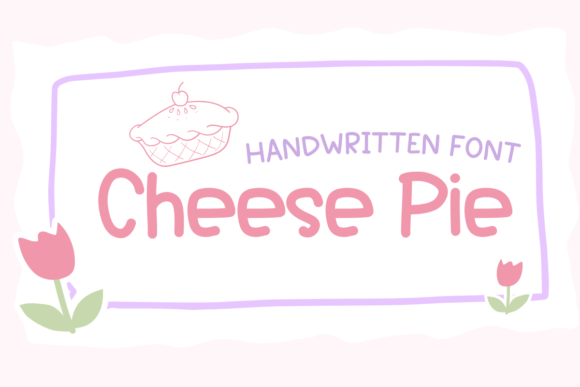
Behold, Cheesepie Font, a culinary delight for the eyes! This delectable script typeface, crafted by the virtuoso Sirinart, is a capricious dance of letters, each character a whimsical morsel of artistic expression. Allow Cheesepie Font to sprinkle a dash of whimsy and a dollop of charm onto your creative projects, leaving a lasting impression that will tickle the senses.
Picture this: an invitation adorned with Cheesepie Font, its playful curves inviting guests to embark on a whimsical adventure. A food package, its label adorned with this delectable font, exudes an aura of artisanal craftsmanship, promising a taste of something extraordinary. And envision a branding project infused with the magic of Cheesepie Font, its unique charm captivating audiences, leaving an indelible mark on their minds.
With Cheesepie Font as your culinary companion, your designs will be transformed into delectable masterpieces. Its delectable flavor pairs perfectly with logos, branding, packaging, and any project craving a touch of lightheartedness and imagination. Embrace the delectable, the whimsical, and the downright charming—let Cheesepie Font tantalize your creative taste buds and leave your audience craving more.
But beware, dear adventurer, Cheesepie Font's allure is not for the faint of heart. Its captivating curves and playful spirit demand attention, demanding to be the star of the show. Use it sparingly, as a delicate garnish that elevates your designs to new heights of whimsy.
Indulge in the deliciousness of Cheesepie Font today and embark on a typographic odyssey that will leave your designs forever changed. Let this font be your secret ingredient, the dash of whimsy that transforms the ordinary into the extraordinary. Bon appétit!